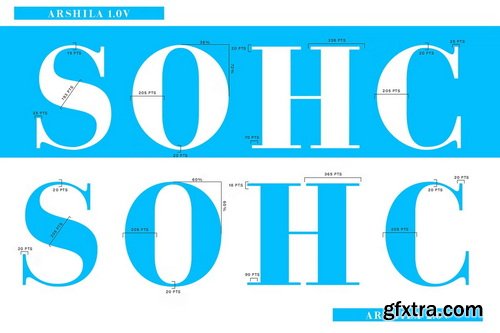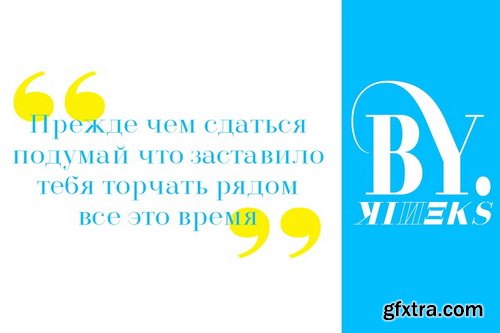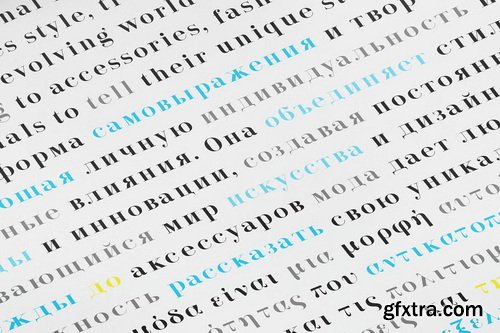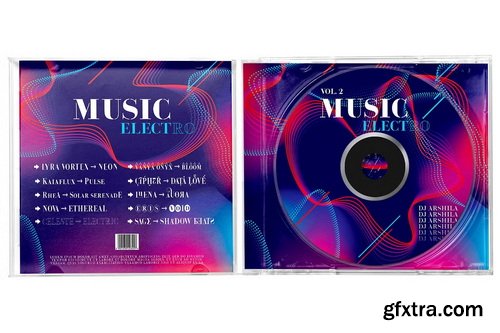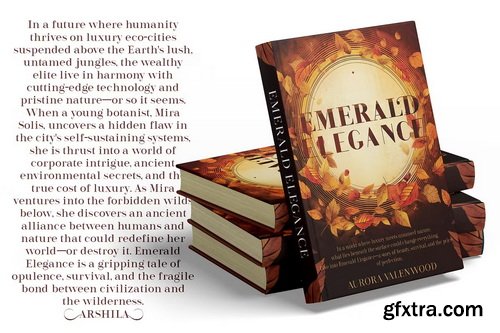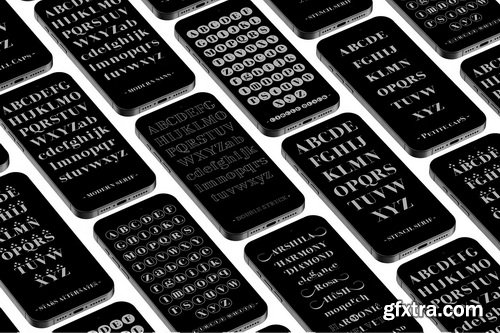
• Introducing Arshila Typeface 2.0, the ultimate modern serif font Bykineks and designed by Dede Kurniawan. This refined typeface family combines timeless sophistication with cutting-edge features to enhance your creative projects.
What’s New in Arshila 2.0?
• This latest version brings significant updates to elevate your design experience:
• Expanded Glyph Set: Over 2500 glyphs covering Latin Pro, Cyrillic, Greek support for 110+ languages.
• Enhanced OpenType Features: Now includes small caps, petite caps and stylistic alternates for unparalleled customization.
• New Design Elements: Added sans serif, double struck, stencil, circle, and circle black styles for unique visual expression.
• Optimized Aesthetics: Refined shapes and contours ensure clarity and elegance in every application.
Why Choose Arshila 2.0?
• This version builds upon the solid foundation of 1.0 with:
• A Larger Glyph Library: From 700+ to 2500 glyphs for greater creative flexibility.
• Expanded Language Support : Latin Pro, Cyrillic, Greek
• New OpenType Features: Adds features like small caps, petite caps, and stylistic alternates for unparalleled customization.
• Fresh Visual Styles: Introduces double struck, stencil, sans serif, circle, and circleblack styles to expand design possibilities.